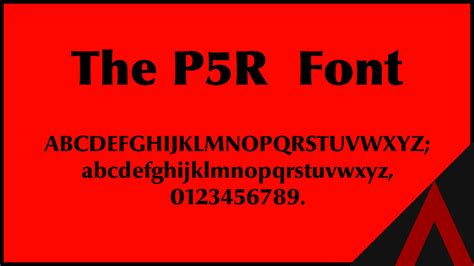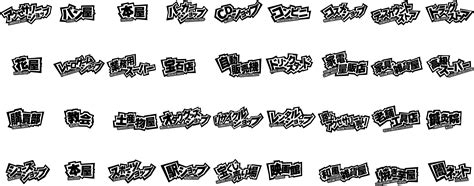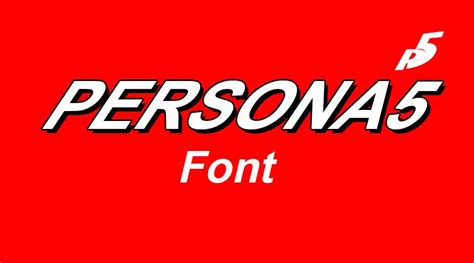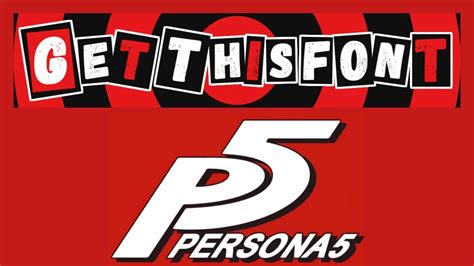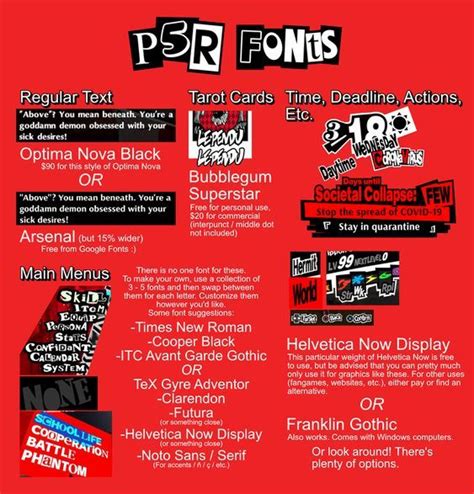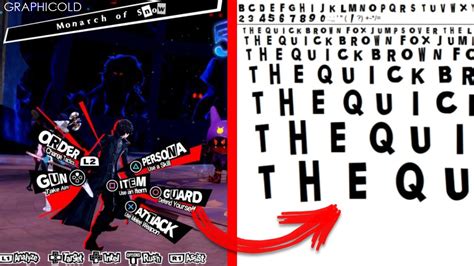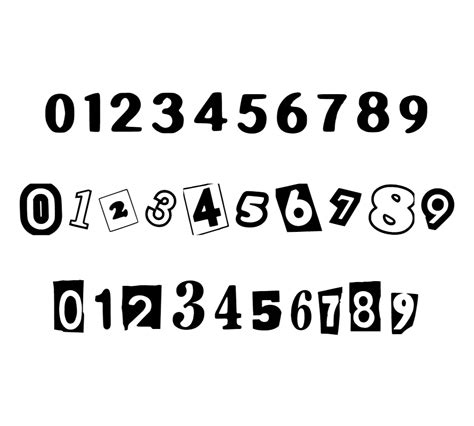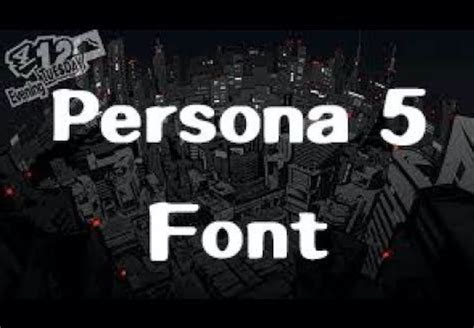
PERSONA 5 FONT
The Persona 5 Font is a distinctive and visually striking font style that has become an iconic element of the popular video game series, Persona 5. This font is not just a collection of letters and numbers; it is a carefully crafted design that embodies the game's themes and atmosphere. With its unique aesthetic, the Persona 5 font has left a lasting impression on players and has become a sought-after asset for fans and designers alike.
The font is characterized by its bold and stylized letters, which often feature intricate details and a mix of traditional and modern elements. It is designed to evoke a sense of mystery and intrigue, reflecting the game's narrative and the characters' personas. The font's versatility allows it to be used in various contexts, from game menus and dialogue to promotional materials and fan-made creations.
One of the key benefits of the Persona 5 font is its ability to enhance the visual appeal of any design it is applied to. Its unique style adds a touch of personality and uniqueness, making it a popular choice for logos, posters, and even fashion designs inspired by the game. The font's popularity has led to its widespread use in various media, ensuring that the Persona 5 universe continues to captivate and inspire fans long after they finish playing the game.